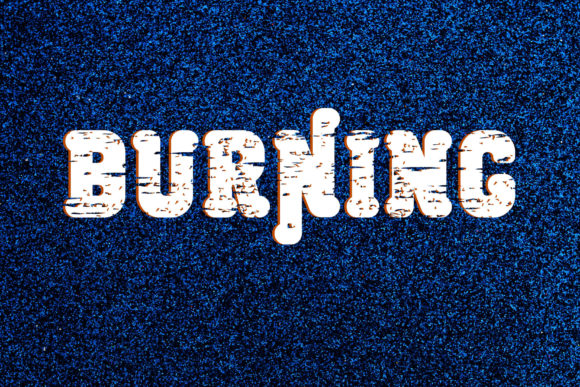
The Burning Font: A Bold, Assertive Display Font for Designers
I’ll never forget the time I was working on a project for a client who wanted a bold, eye-catching font to convey speed and power. I scoured the internet, trying out font after font, but nothing seemed quite right. That was until I stumbled upon the Burning font. With its cool, rough style and assertive vibe, it was the perfect fit for the project. In this article, I’ll share my experience with the Burning font, its features, and how to make the most of it in your designs.
A Personal Review: What I Love About Burning Font
So, what makes the Burning font so special? Here are a few things that I love:
• ✨ Unique style: The Burning font has a one-of-a-kind, rough style that’s perfect for designs that need a bold, edgy look.
• ✅ PUA encoded: The font is PUA encoded, which means you can access all of the glyphs and swashes with ease.
• 💪 Perfect for speed and power designs: Whether you’re working on a project related to sports, energy, or technology, the Burning font is a great choice.
While the Burning font is an excellent choice for many designs, there are a few things to keep in mind:
• 🤔 Limited use cases: Due to its bold, assertive style, the Burning font may not be the best choice for designs that require a more subtle or elegant look.
• ⚠️ Legibility at small sizes: As with many display fonts, the Burning font may not be legible at very small sizes.
The Backstory Behind Burning Font
The Burning font was designed by a team of typographers who wanted to create a bold, assertive font that would convey a sense of speed and power. The font’s unique style is inspired by the rough, edgy look of flames and sparks. The designers behind the Burning font aimed to create a font that would be perfect for designs that require a lot of energy and movement.
Q: What is the Burning font best used for?
A: The Burning font is best used for designs that require a bold, assertive look, such as sports, energy, or technology-related projects.
Q: Is the Burning font PUA encoded?
A: Yes, the Burning font is PUA encoded, which means you can access all of the glyphs and swashes with ease.
Q: Is the Burning font legible at small sizes?
A: As with many display fonts, the Burning font may not be legible at very small sizes. It’s best used at larger sizes where its bold, assertive style can shine.